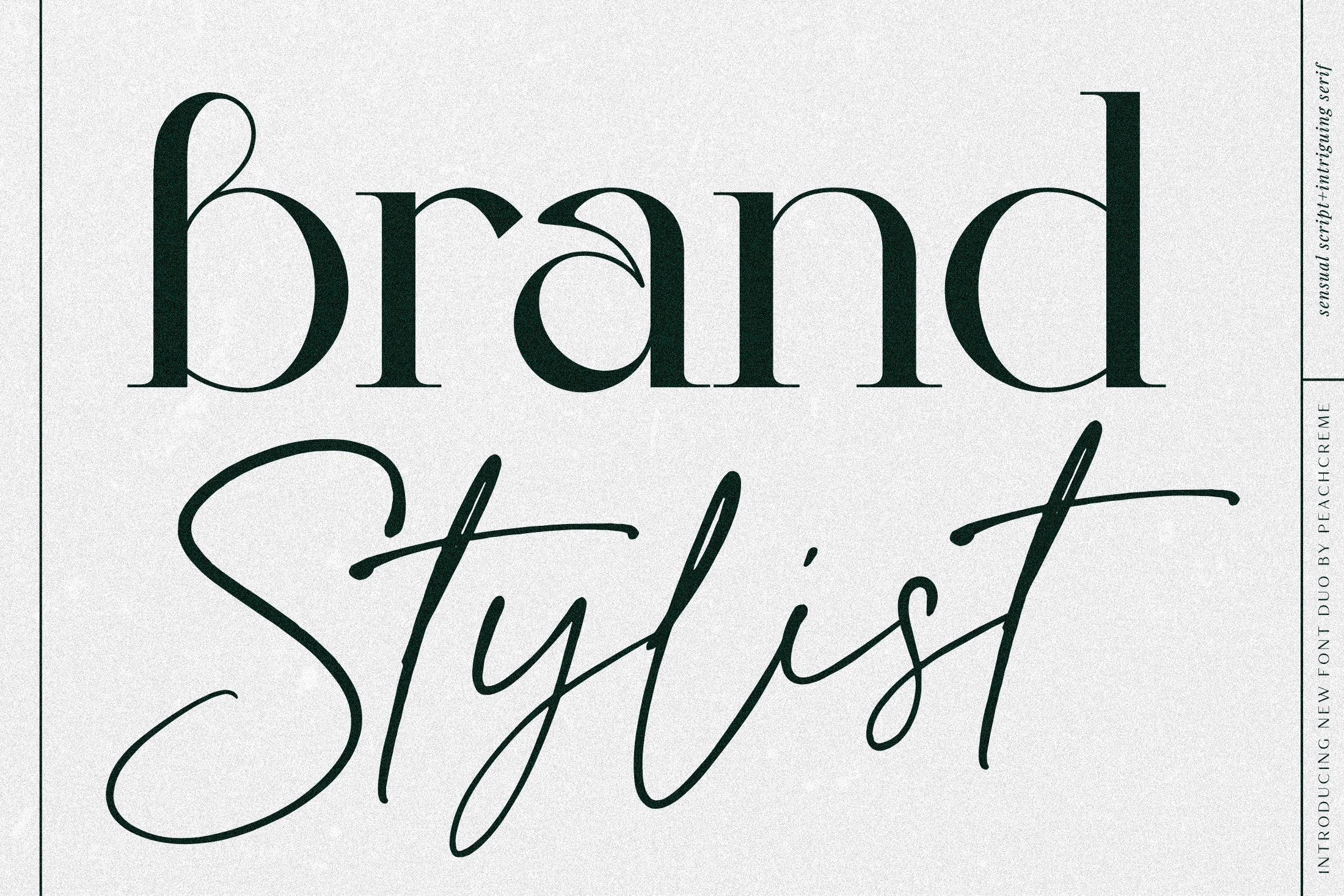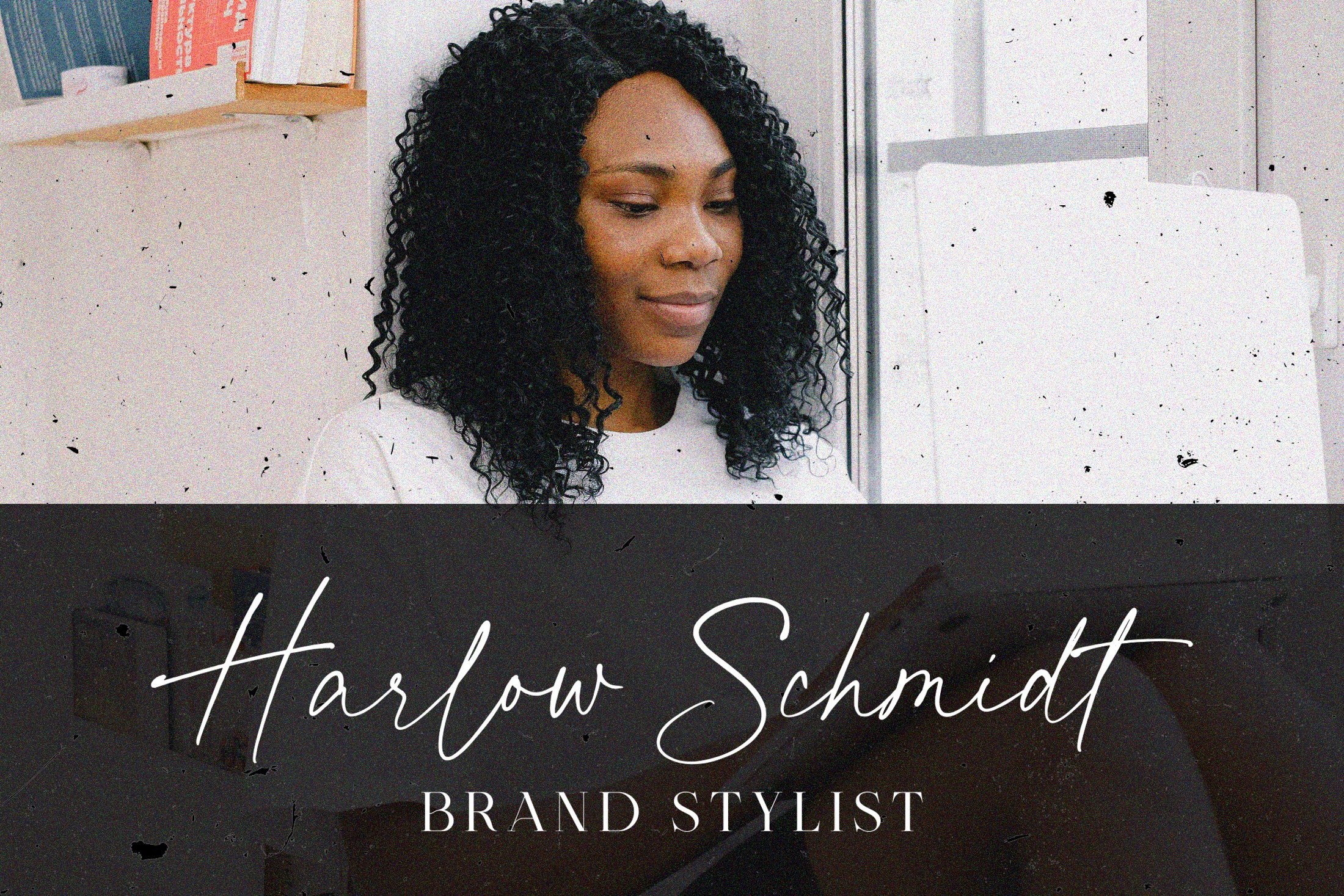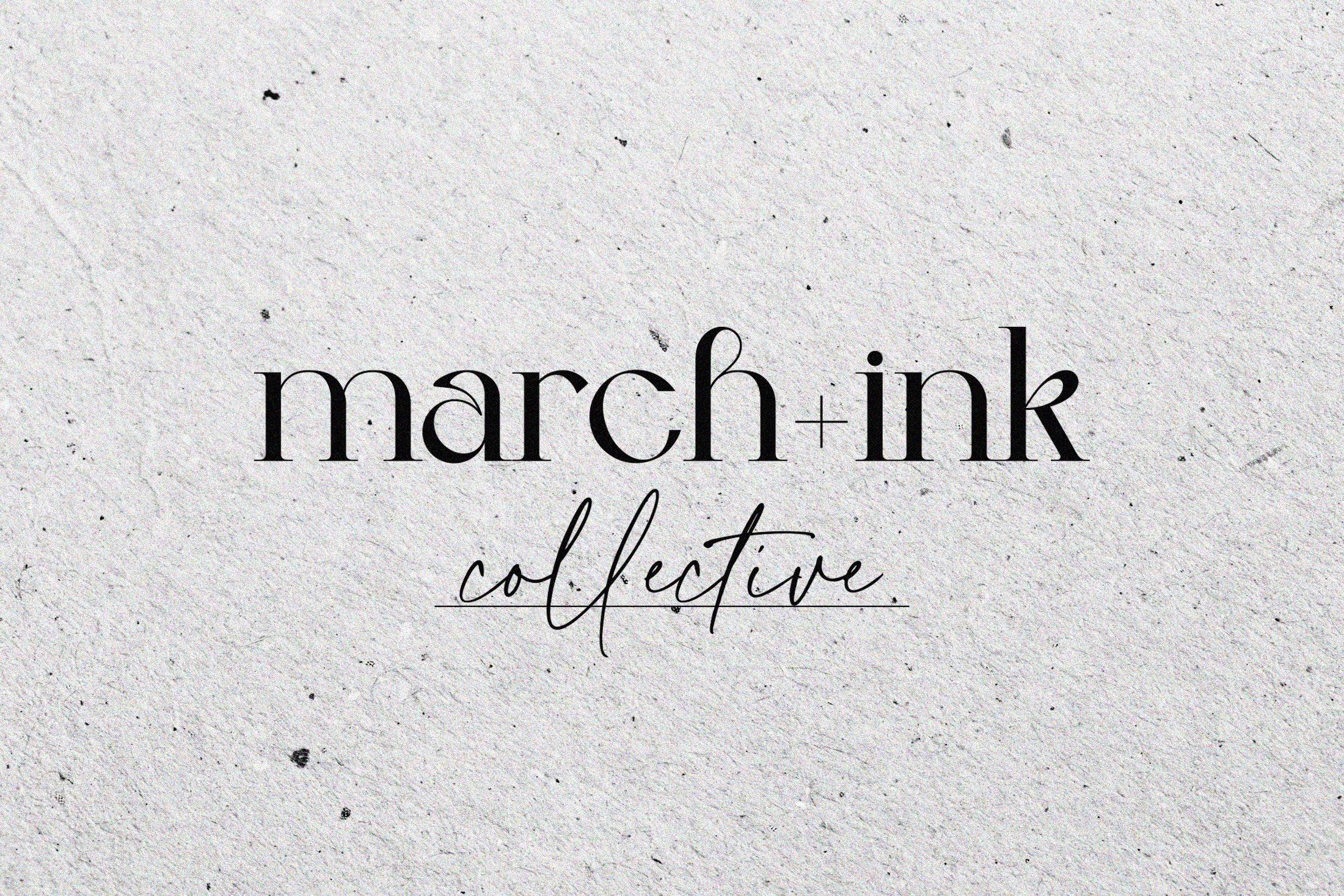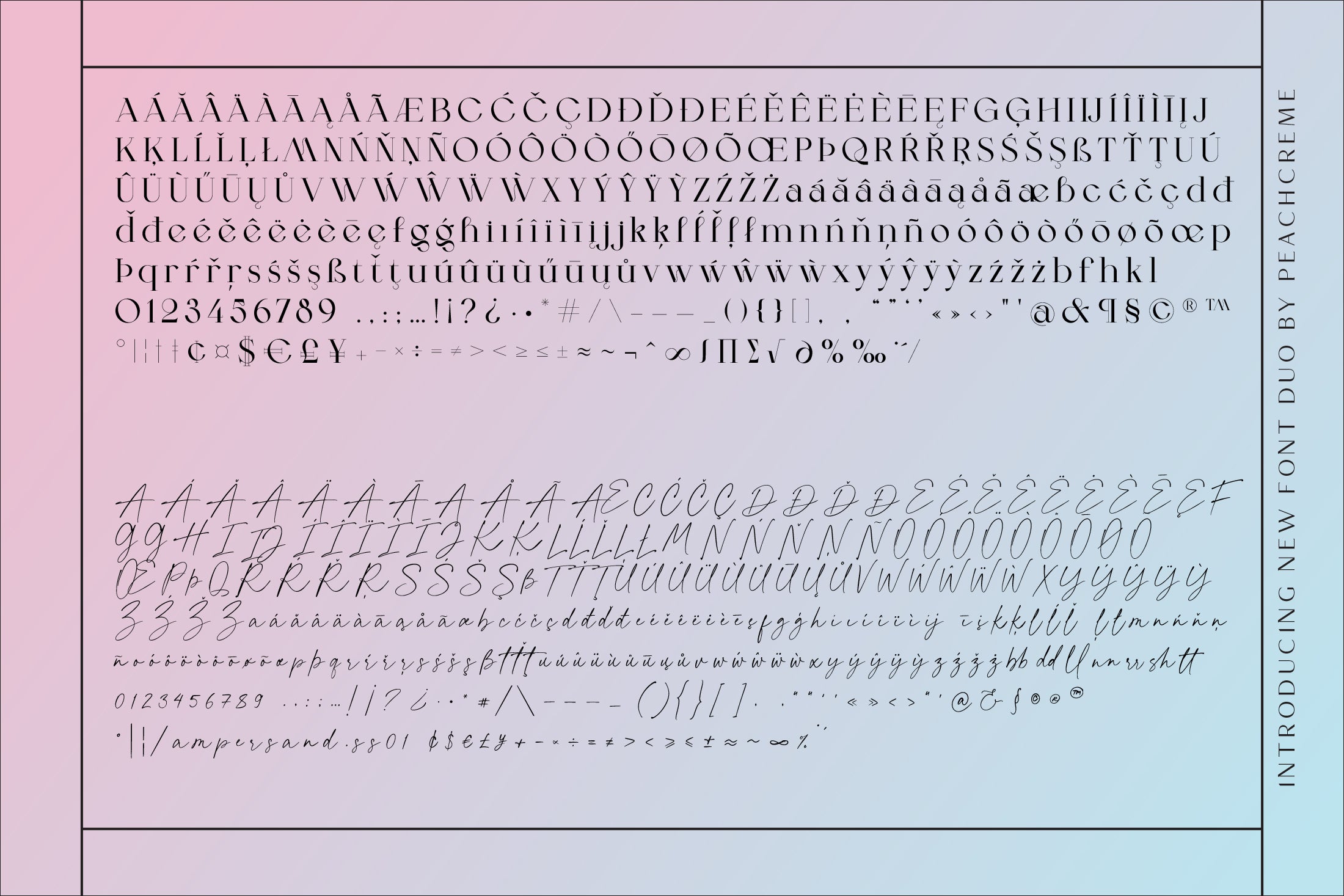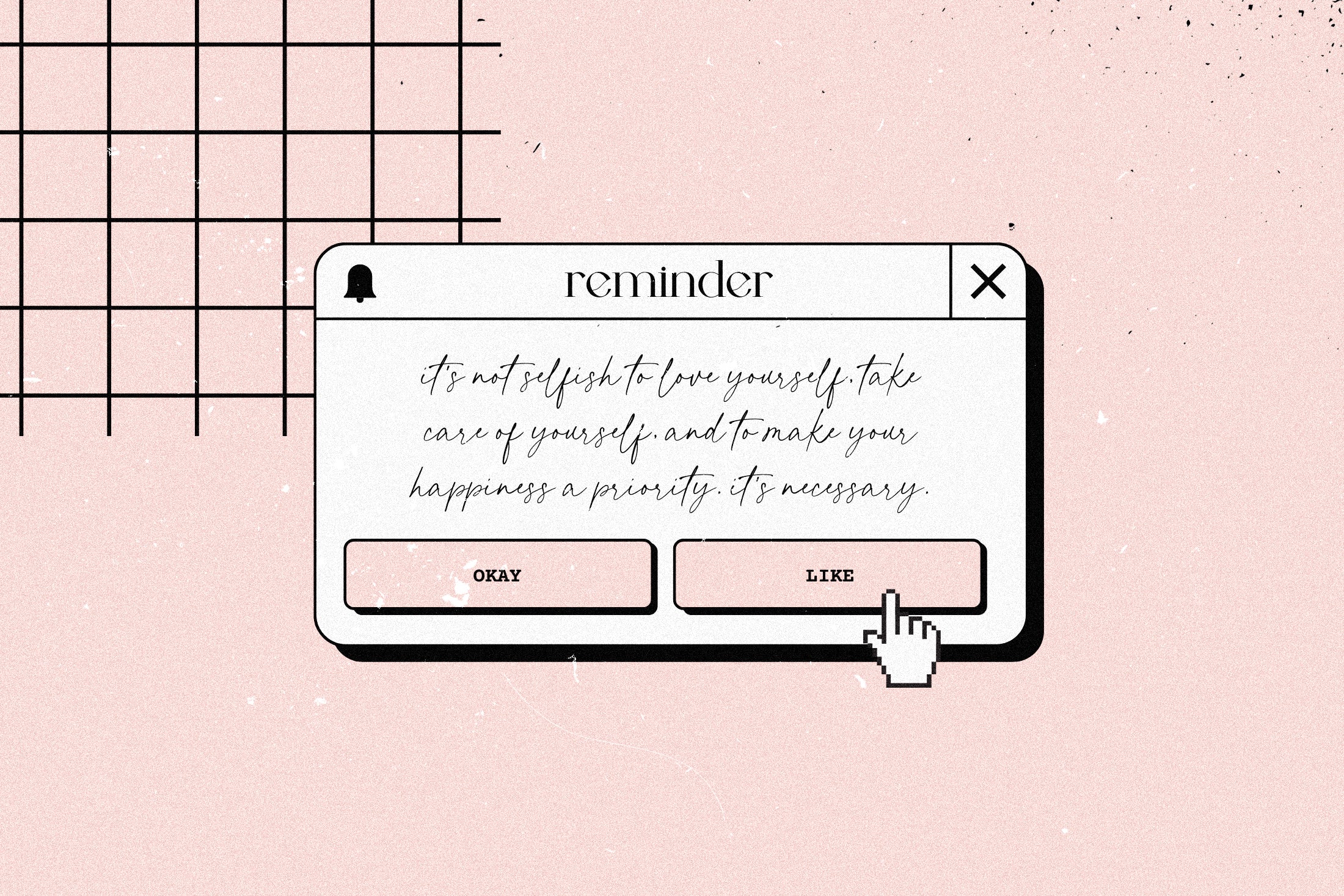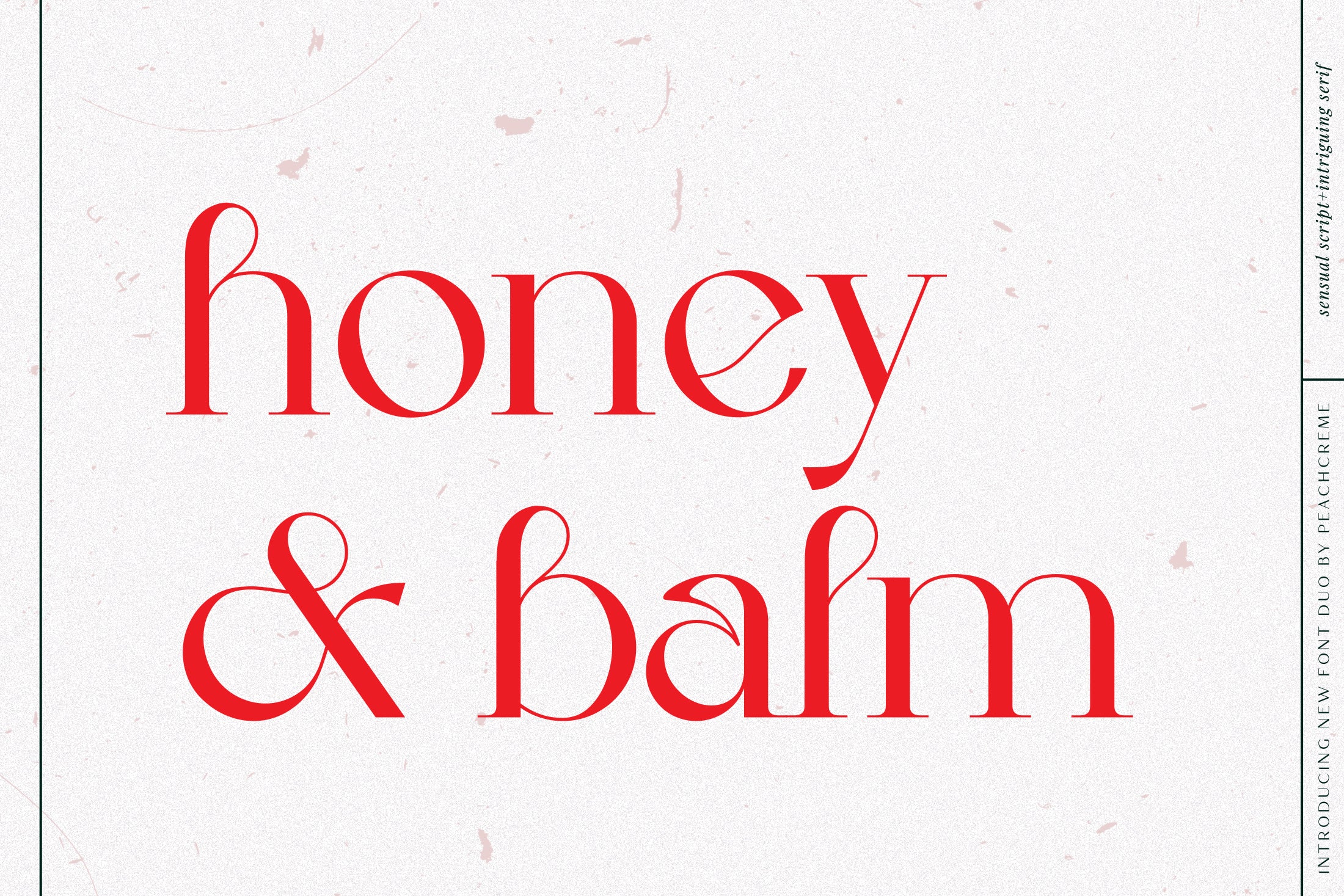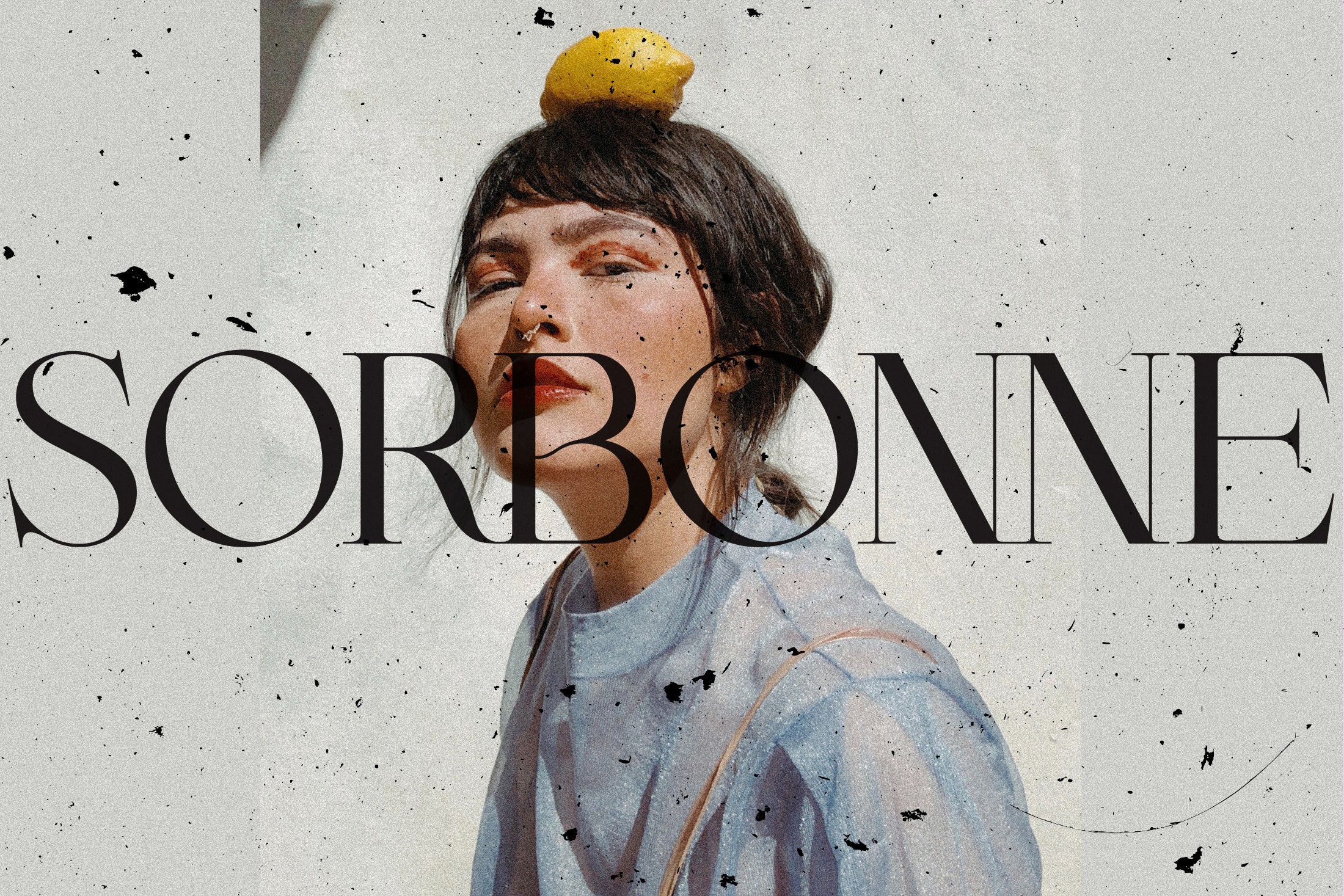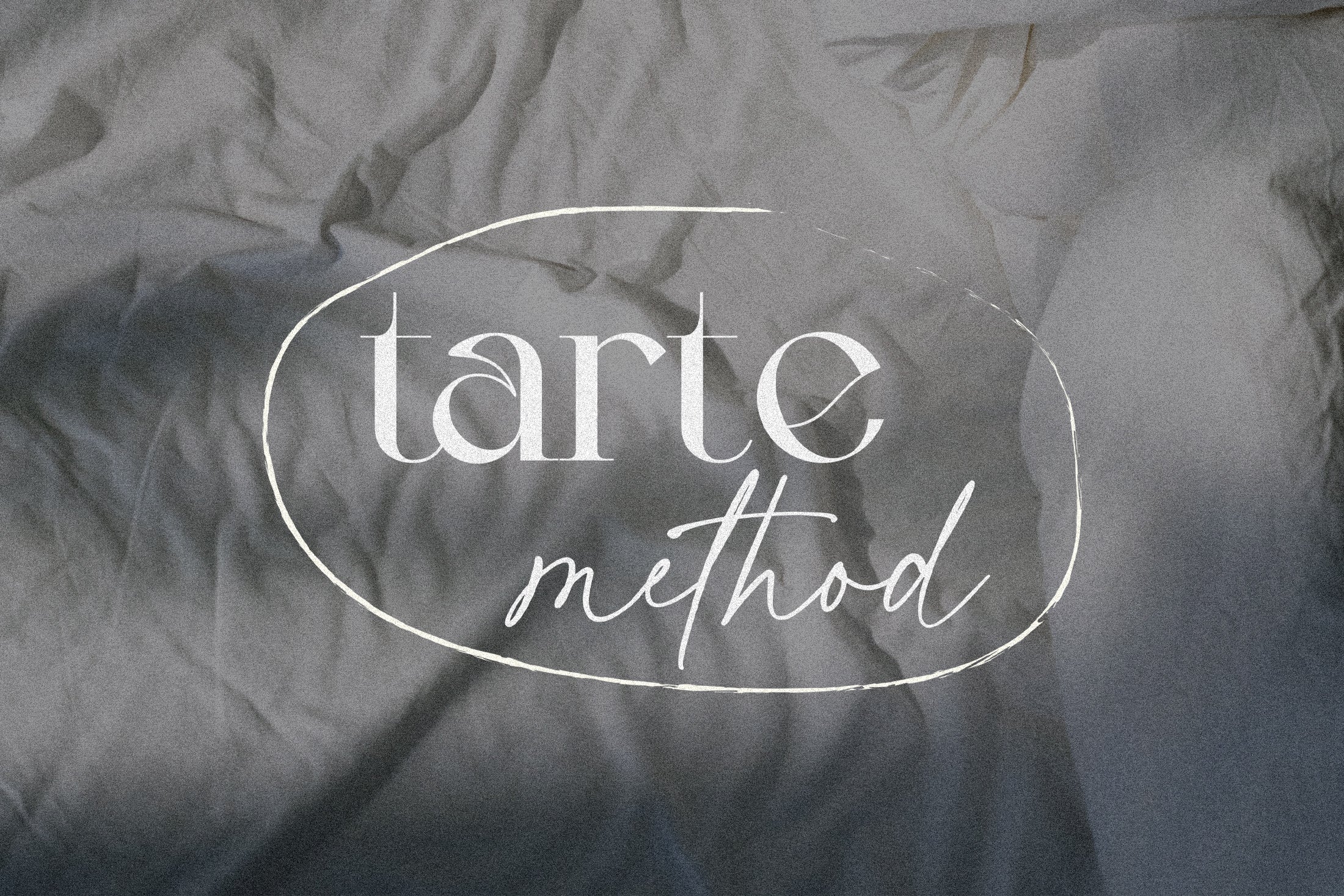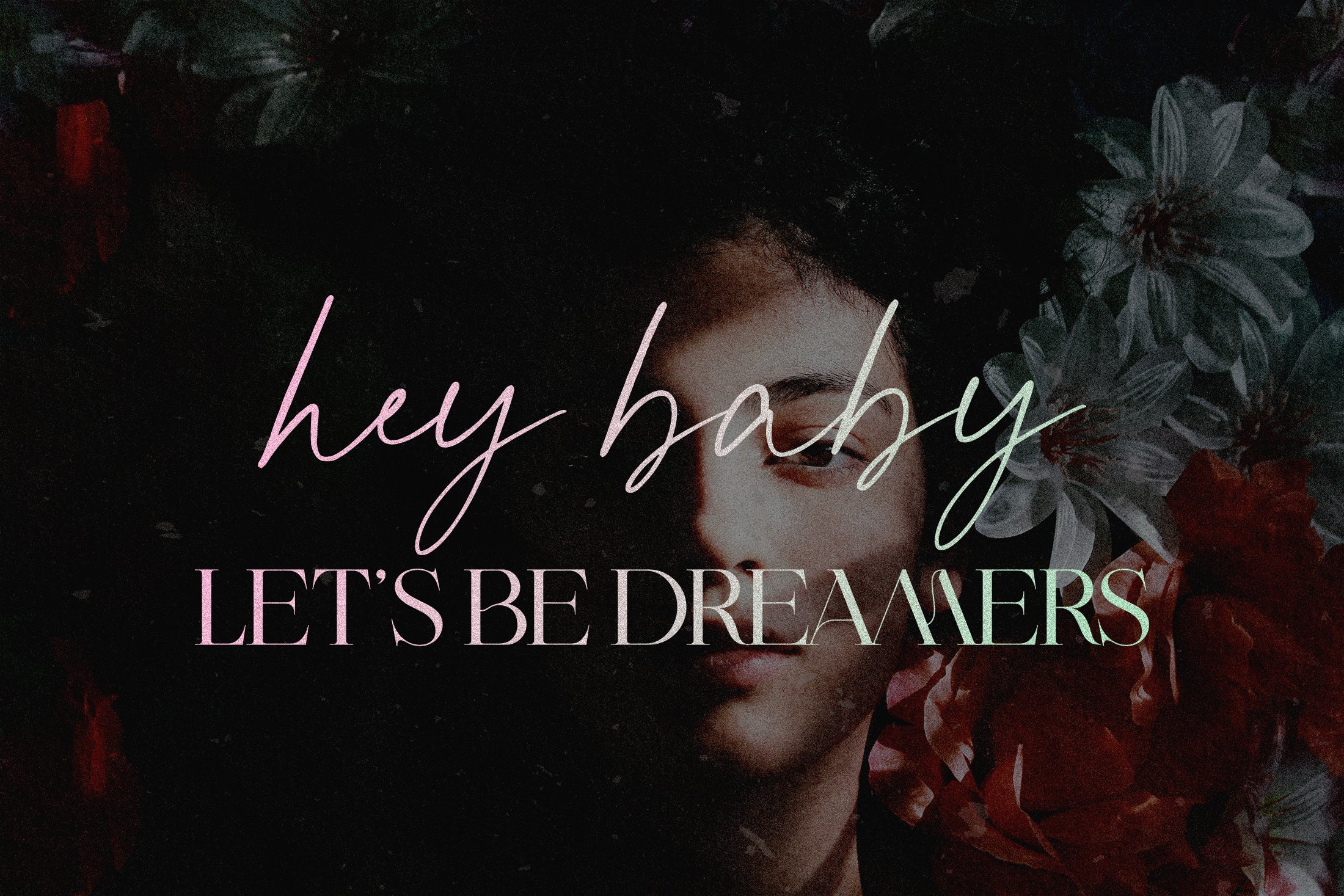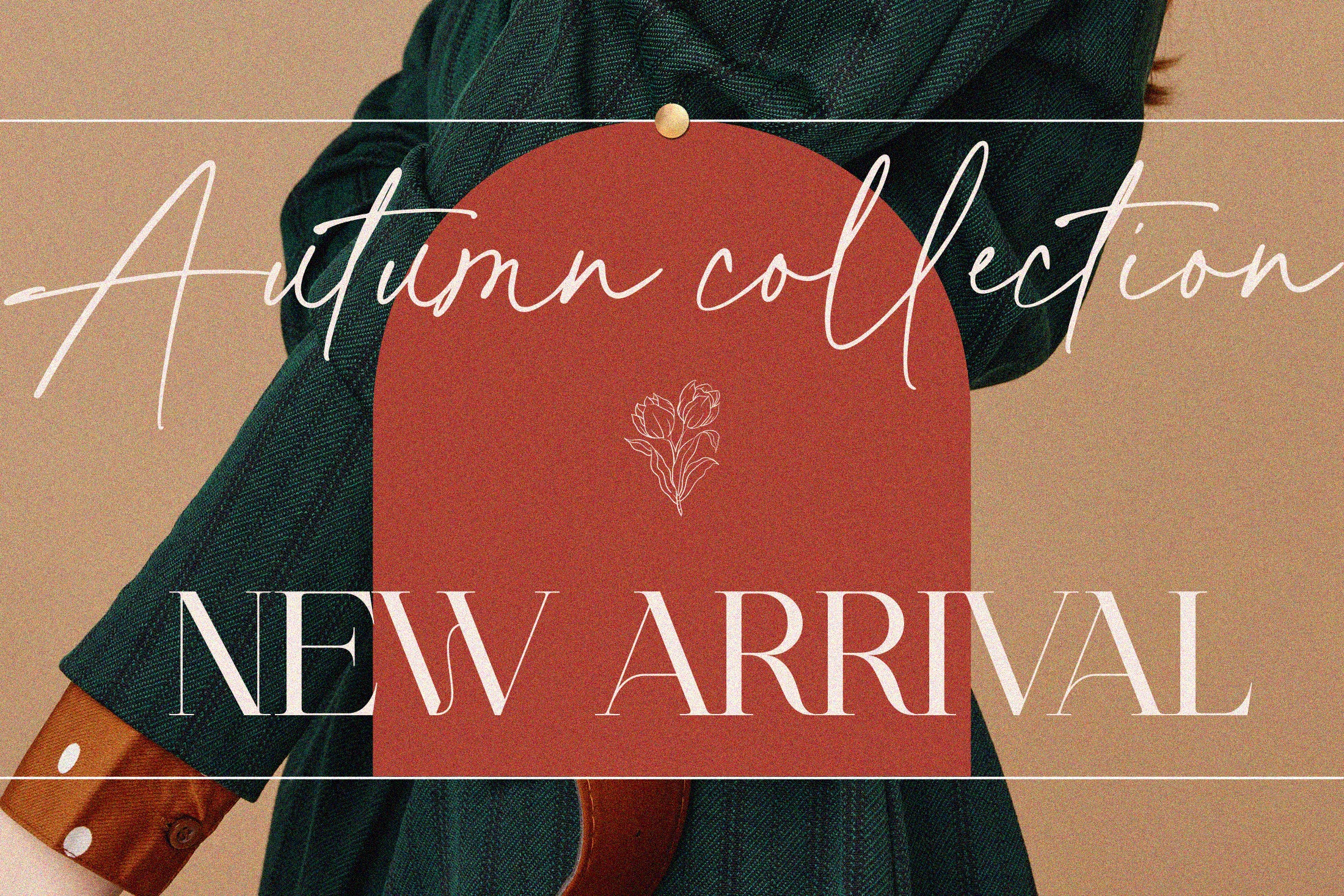
Brand Stylist Font Duo
Looking for perfectly paired branding fonts? Check out our new baby "brand stylist". Not boring display font combined with a sassy script font can become your casual logo designing font.